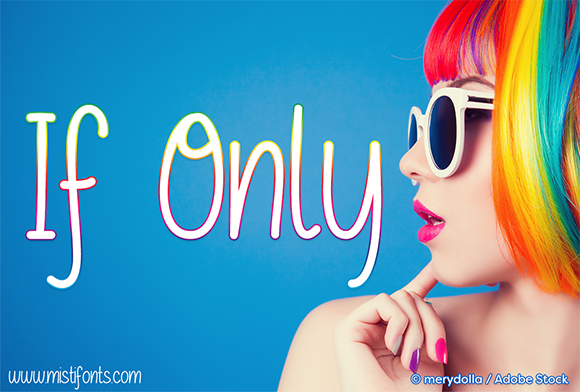
HomeScript FontsIf Only Font Script Fonts If Only Font FacebookXPinterestWhatsApp About If Only Font If Only is a fun, fluid & rounded script created by Misti from Misti’s fonts. DOWNLOAD ON CREATIVE FABRICAThis font is sold and delivered by Creative Fabrica. Font Canyon may earn a commission if you buy through this link. People also explored Happy Sunday Font Hailey Font Wonderful Farmhouse Font Villarys Font Standgrow Font Hanthemn Script Arianna Font January Font Beautiful Sunflower Font 285 0 TagsIf Only Font Previous articleXandrella FontNext articleShrifton Font LEAVE A REPLY Cancel reply Comment: Please enter your comment! Name:* Please enter your name here Email:* You have entered an incorrect email address! Please enter your email address here Website: Save my name, email, and website in this browser for the next time I comment. Personal Use Free Vincent Familiante Personal Use Free Read more about this font DangeRNighT Font Personal Use Free Read more about this font Rakesly Personal Use Free Read more about this font 1980 Portable Personal Use Free Read more about this font BLOG The 10 Best Handwriting Fonts to Add Personality to Your Designs 10 of the Best Handwriting Fonts for Adding Personality to Your Designs There will undoubtedly be no other better choice than handwriting fonts to give... To increase your work productivity, choose the most readable fonts. Exploring Font Trends Transform Your Website: Elevate Your Typography with 7 Best Web Font Generators